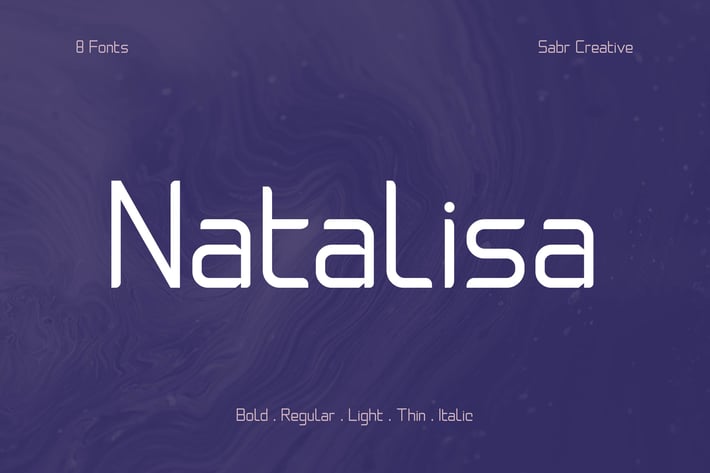
Natalisa Font Family
SabrCreative
Natalisa is a modern futuristic sans-serif font family built for tech logos, digital branding, and clean contemporary design. With slightly expanded rounded letterforms that balance softness with solidity, Natalisa delivers a confident, forward-looking personality across 8 versatile styles.
- 8 font styles: Bold, Regular, Light, Thin each in Regular and Italic
- Rounded geometric letterforms with a futuristic clean aesthetic
- Uppercase & lowercase with numbers and punctuation
- Multilingual support with extended Latin characters
- OpenType features supported